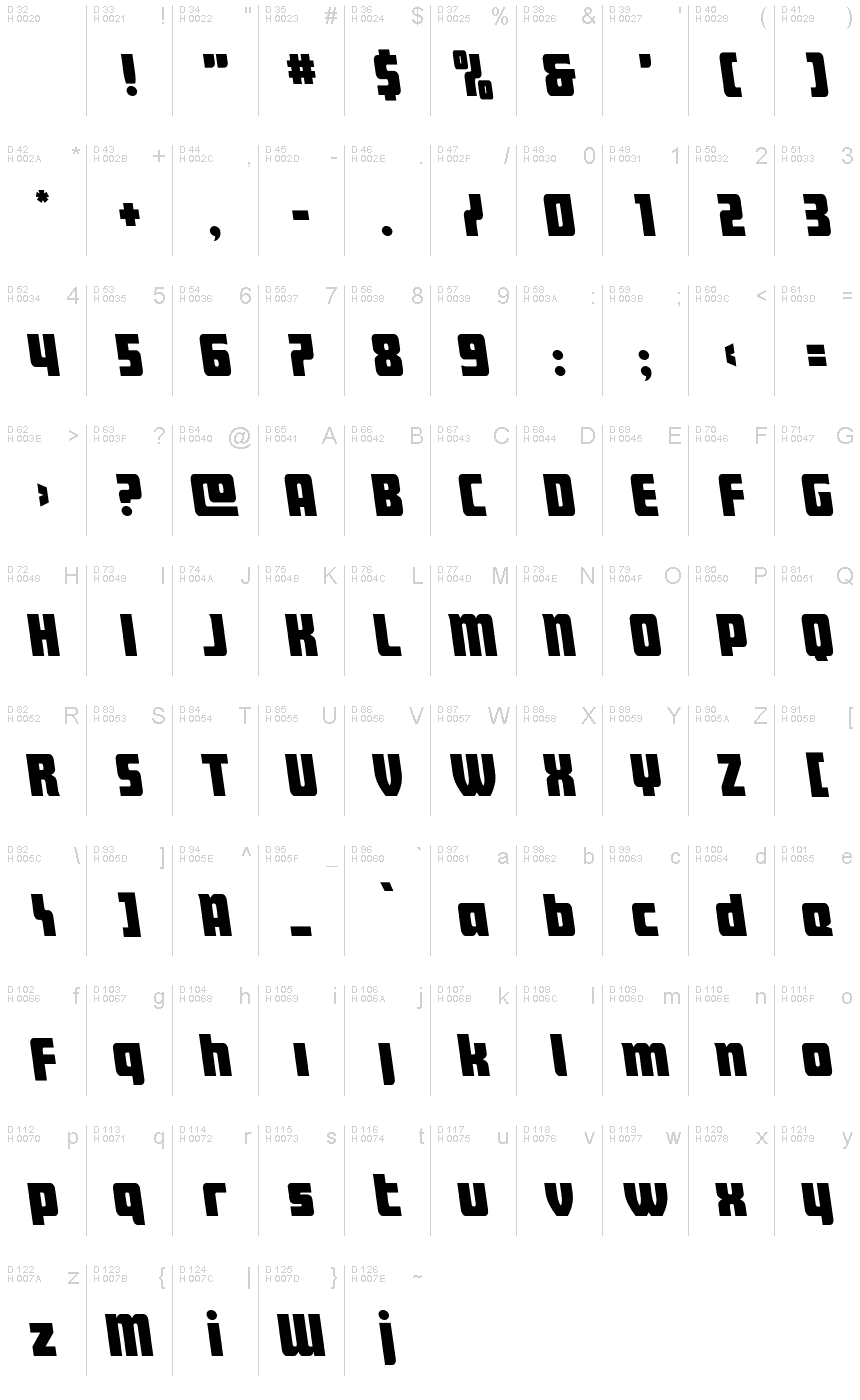
Intrepid Spear LC Leftalic
Intrepid Spear LC Leftalic, a distinct member of the Intrepid Spear font family designed by Iconian Fonts, brings a bold and futuristic techno style to your design arsenal. This display font's condensed and assertive form is characterized by its angular lines and geometric cuts, projecting strength and modernity with every character. Its left-leaning italic variation adds dynamism to the text, suggesting motion and forward-thinking.
Crafted with an eye for impactful visual design, Intrepid Spear LC Leftalic is not just another typeface; it's a statement piece that commands attention. The weighty boldness of this font pairs well with high-energy projects requiring a touch of technological sophistication or sci-fi flair.
With its versatility split into Regular and Lower Case sub-families, designers have the freedom to tailor their textual expressions closely to their creative vision. Whether you're laying out titles for an action-packed video game interface or branding for cutting-edge tech startups, Intrepid Spear LC Leftalic is tuned to make your message resonate in the most visually compelling way.